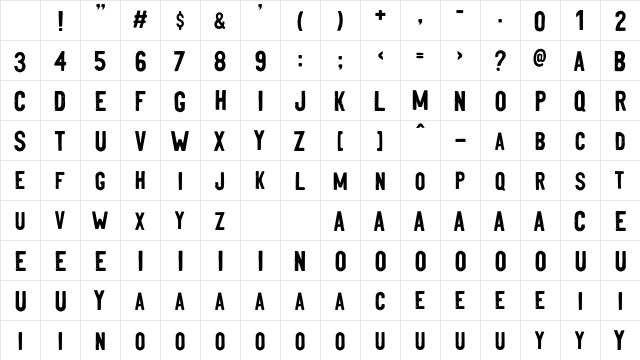
Complete Yesterday Dream Regular glyph index. Displaying only characters natively supported by Yesterday Dream Regular font.
Yesterday Dream is a composed and adaptable typeface that performs quietly and consistently across a wide range of design contexts.